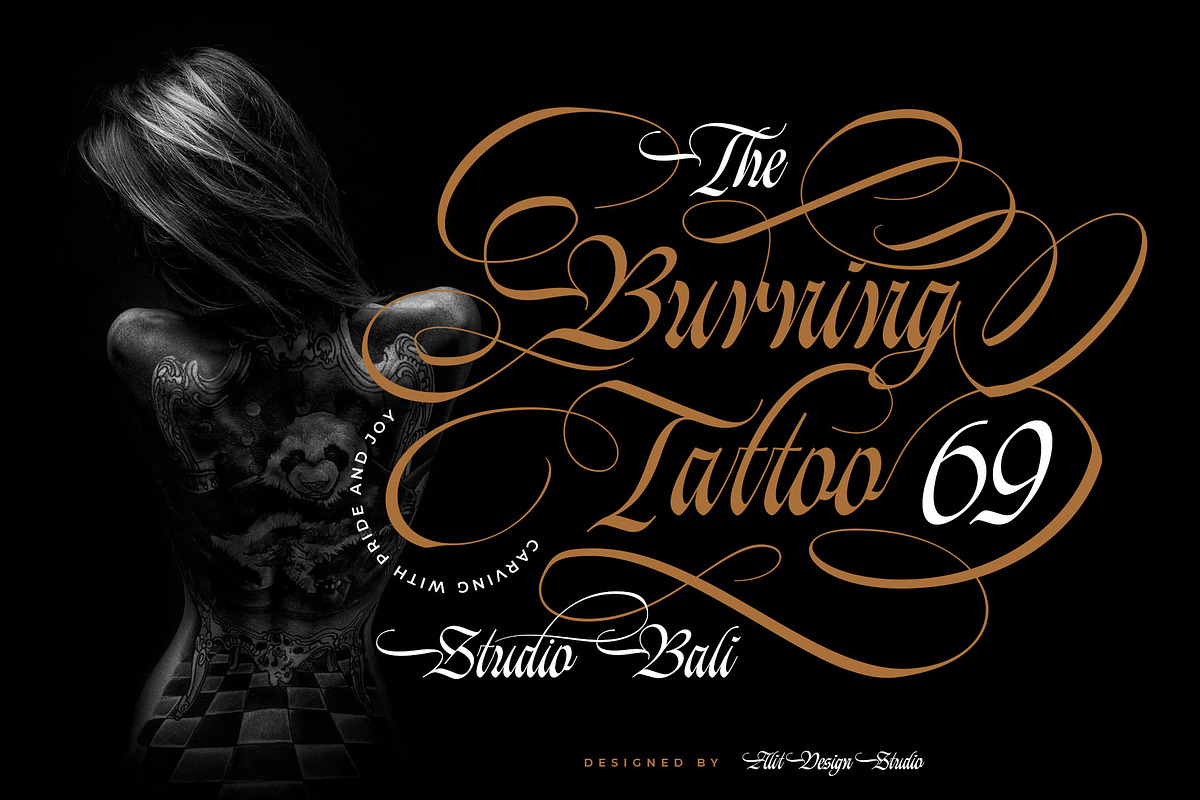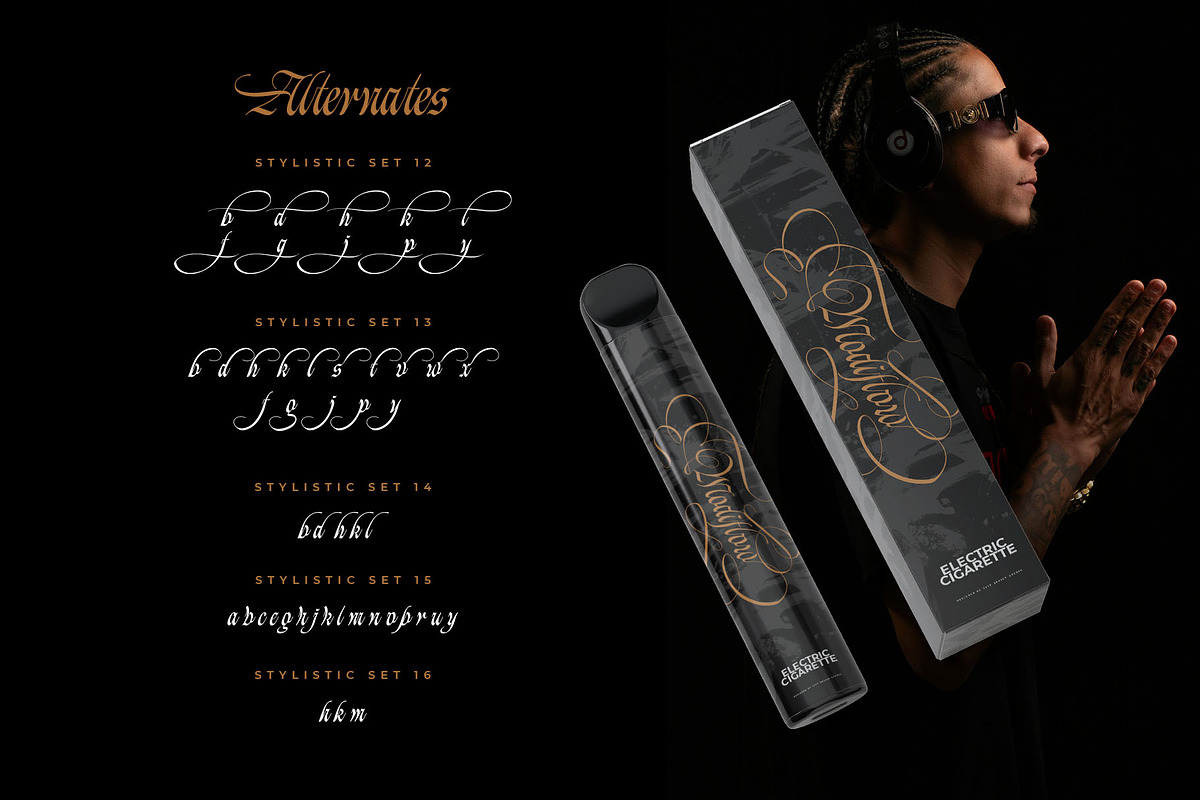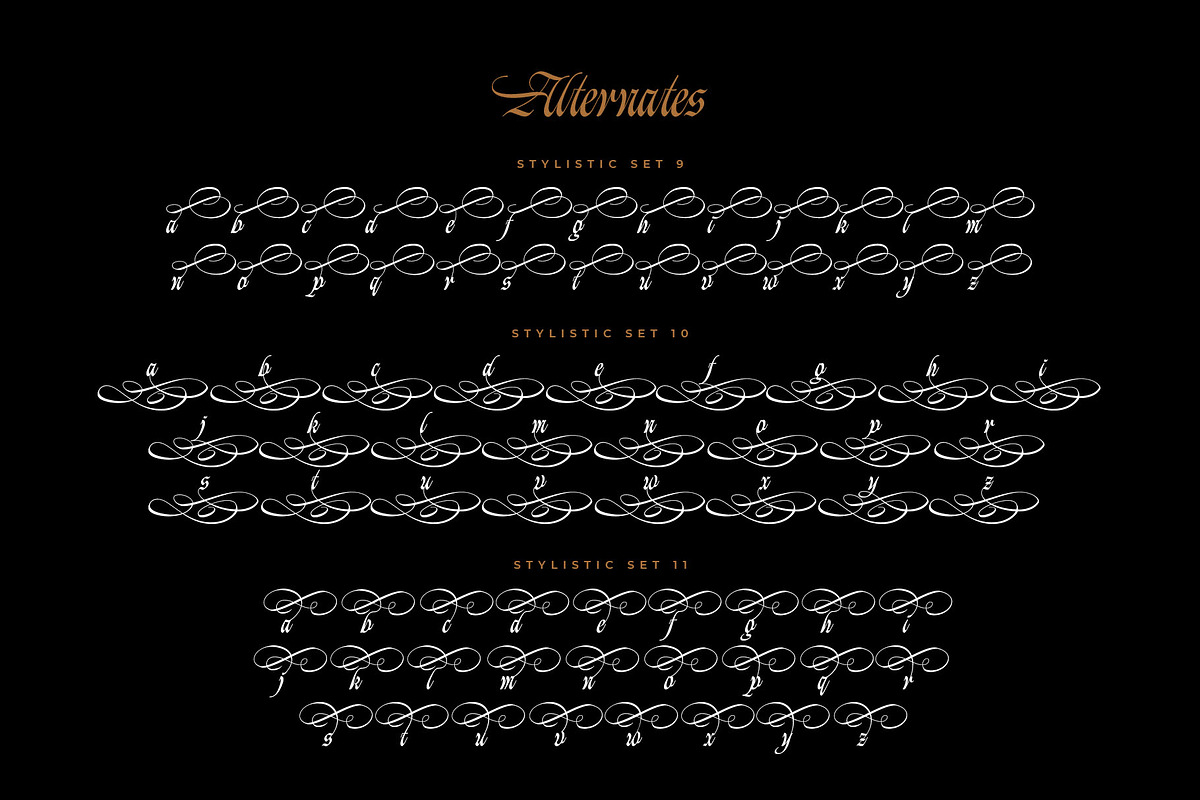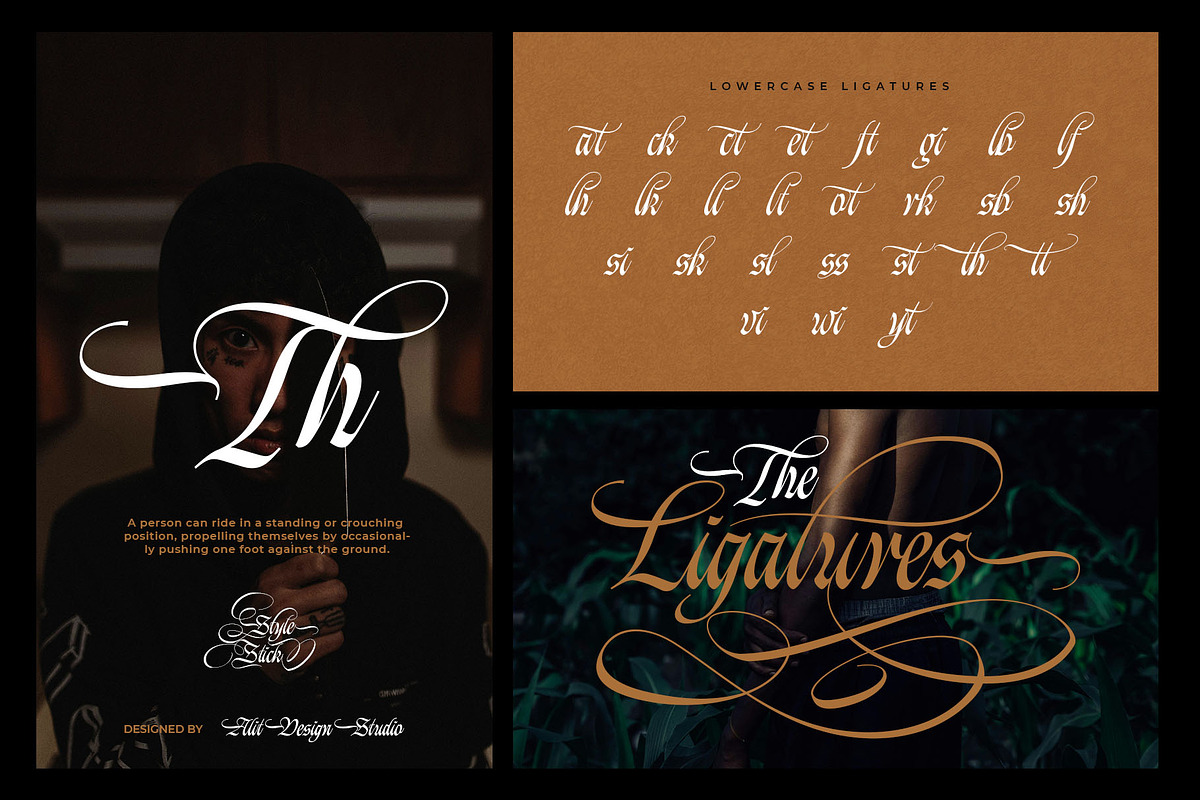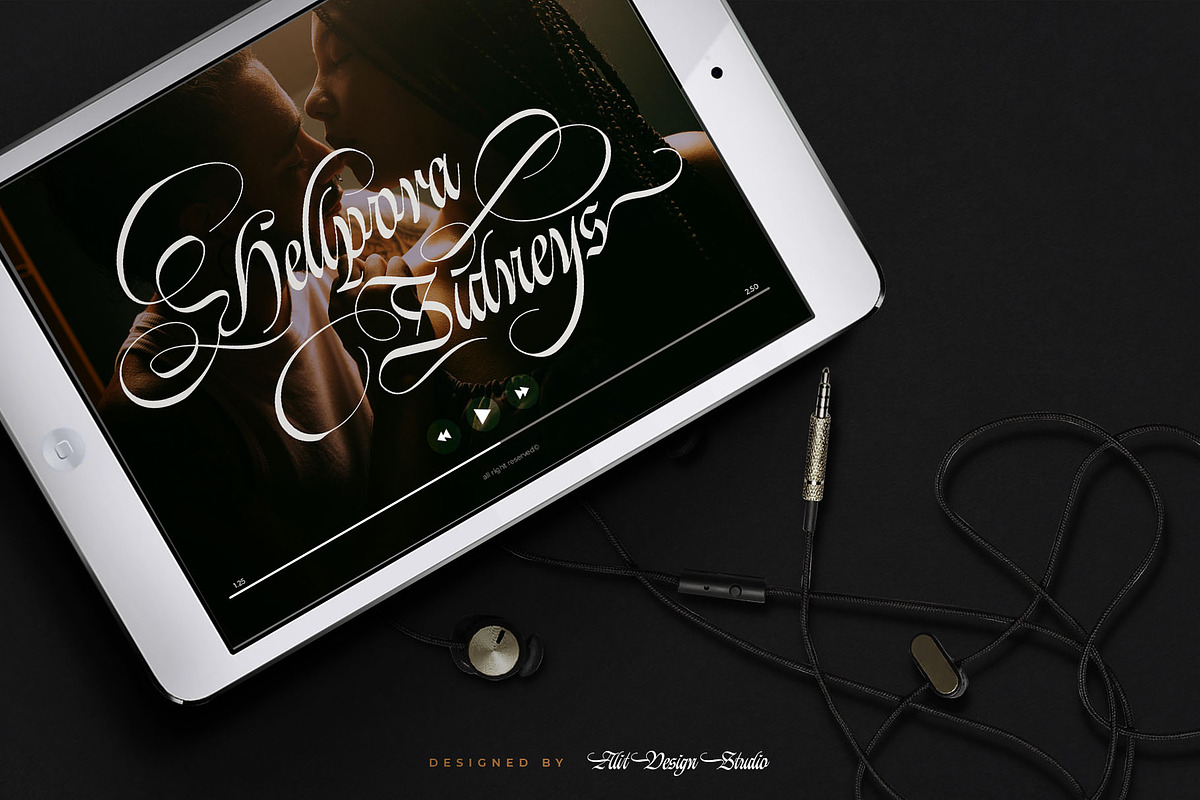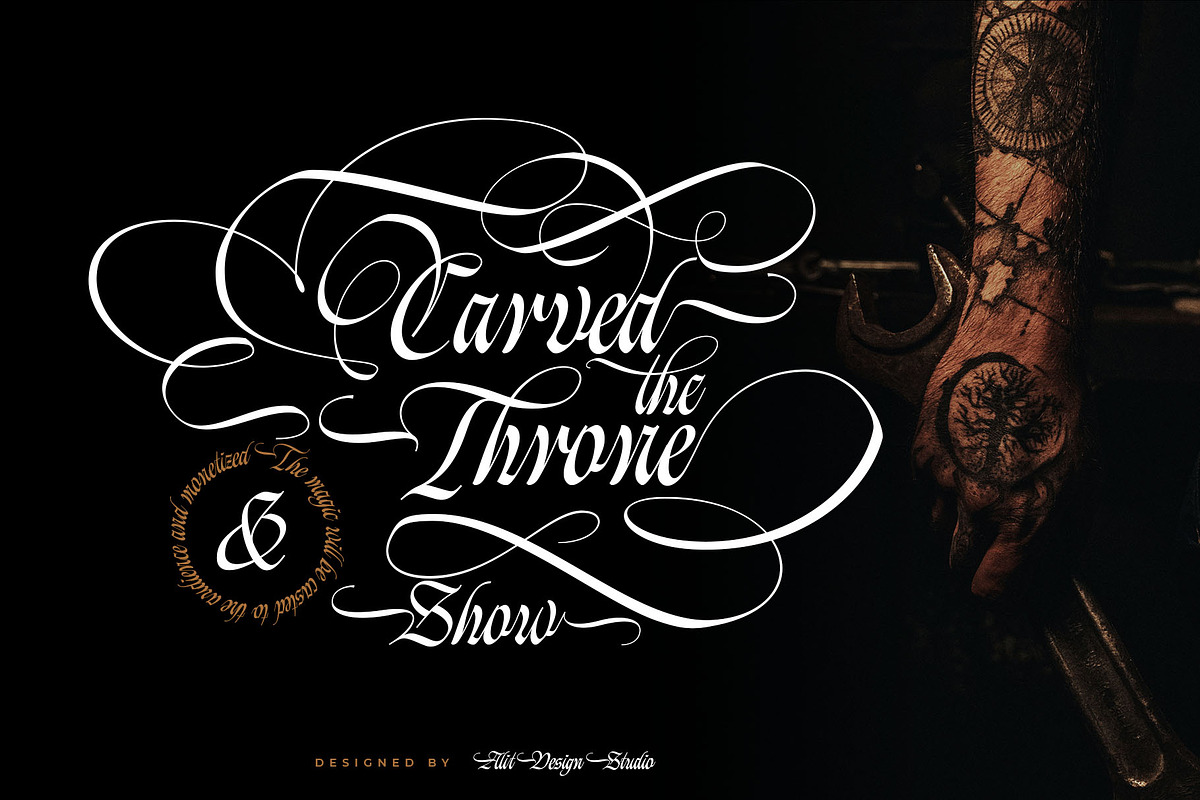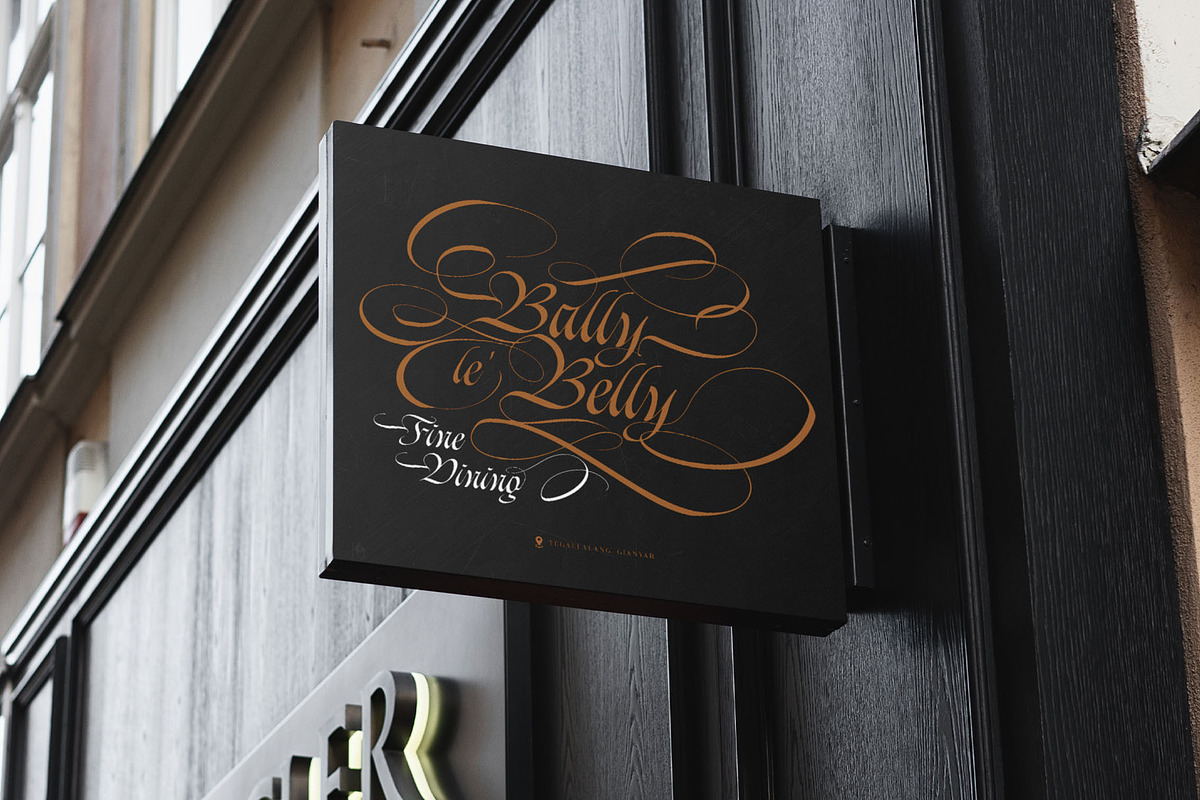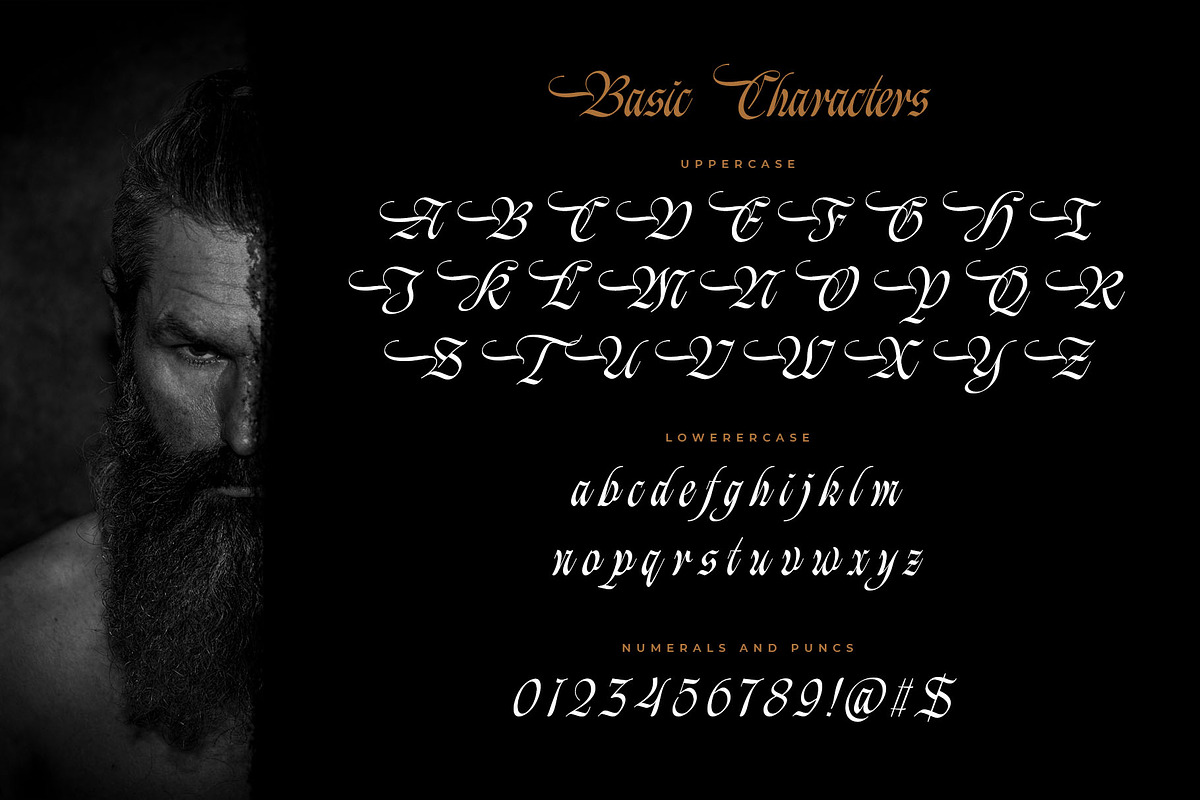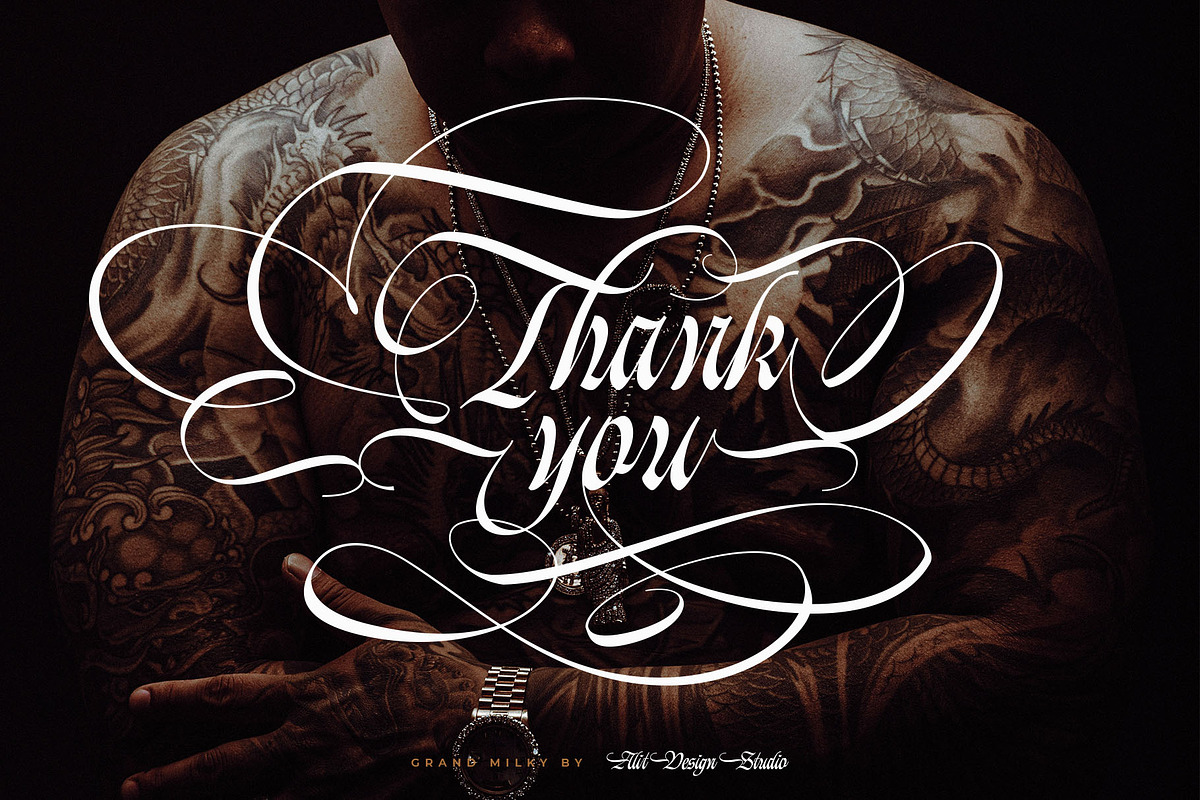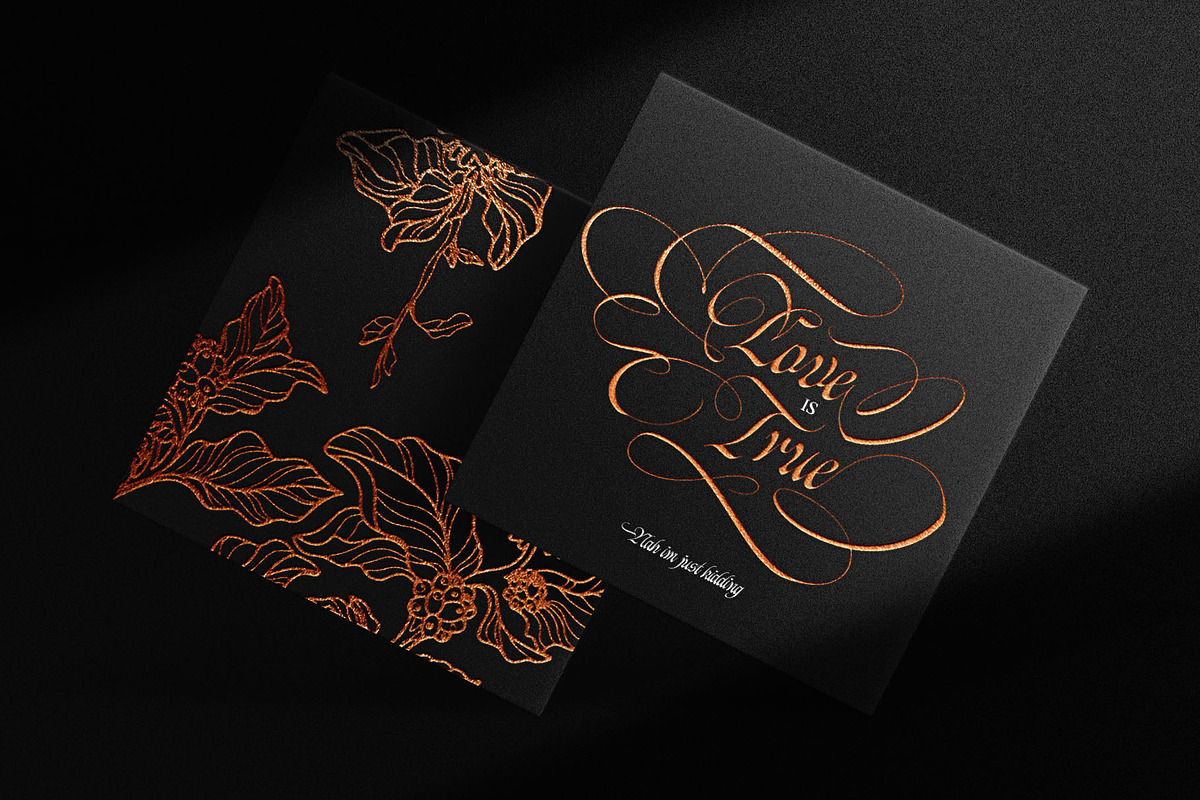
Grand Milky Typeface
Grand Milky Typeface - A Fierce and Passionate Blackletter Script
Introducing Grand Milky Typeface, a digital calligraphy masterpiece that fuses the strength and boldness of blackletter with the elegance of a free-flowing script. Designed to radiate a strong, masculine, and fearless aura, Grand Milky is the perfect choice for designers looking to make a bold statement.
Inspired by the art of custom tattoos, streetwear culture, and premium labels, this font is designed to stand out. Each letter is a work of art in itself, featuring sharp strokes, dramatic contrast, and adorned with beautifully winding swashes that still maintain a fierce impression.
With over 934 glyphs, including a wide range of alternate character sets and ligatures, Grand Milky offers limitless creative freedom. Create unique and personal typographic compositions, as if you were writing them by hand yourself.
- Unique Hybrid Style: A perfect blend of gothic blackletter and modern calligraphy script.
- Hundreds of Alternate Characters: Limitless customization with Stylistic Alternates, Swashes, and Ligatures to create truly unique designs.
- Full Character Set: Includes uppercase, lowercase, numerals, and standard punctuation.
- Multilingual Support: Ready to be used for a range of international projects.
- Branding & Logos: Tattoo studio logos, men's apparel brands, liquor labels (whiskey, beer), barbershops, and motorcycle clubs.
- Apparel Design: T-shirts, hoodies, and other merchandise that need a strong, personal touch.
- Music & Events: Album covers for rock/metal genres, concert posters, and event flyers.
- Editorial Typography: Magazine titles, website headers, and high-impact visual quotes.
- Tattoo Design: As a reference or base for custom tattoo lettering.